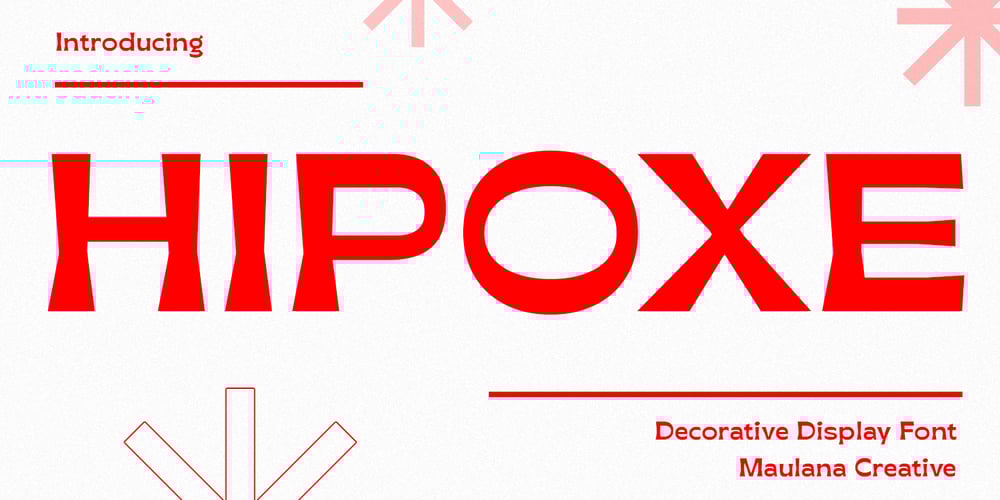
MC Hipoxe Font Family was designed by Gilang Maulana and published by Maulana Creative. MC Hipoxe contains 1 styles and family package options. Hipoxe is a modern Decorative flared sans serif Display font. Bold stroke, fun character with a bit of ligatures and alternates. To give you an extra creative work. Hipoxe font support multilingual more than 100+ language. This font is good for logo design, Social media, Movie Titles, Books Titles, a short text even a long text letter and good for your secondary text font with script or serif. Make a stunning work with Hipoxe font. Cheers, Maulana Creative